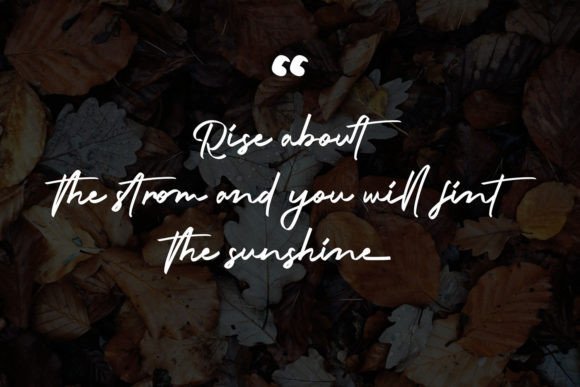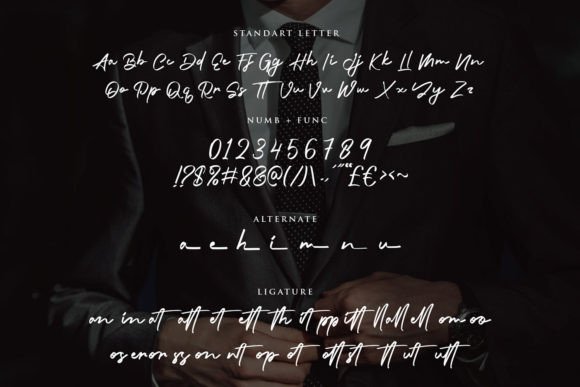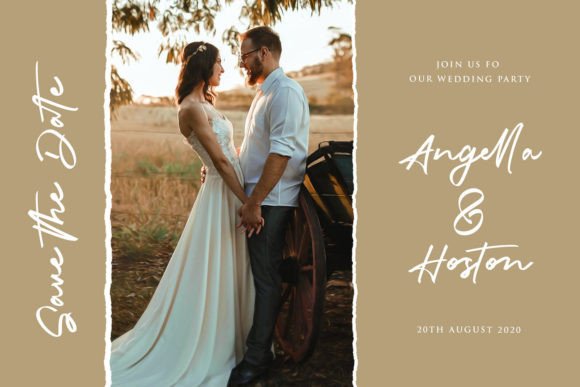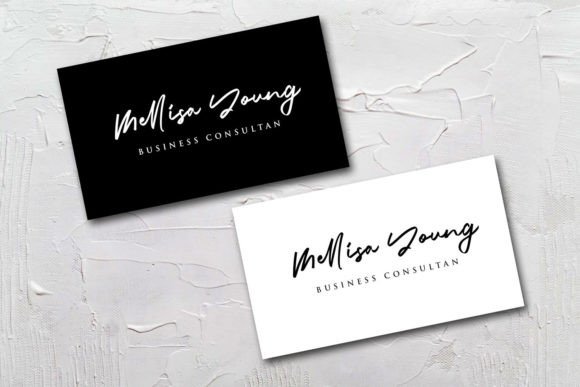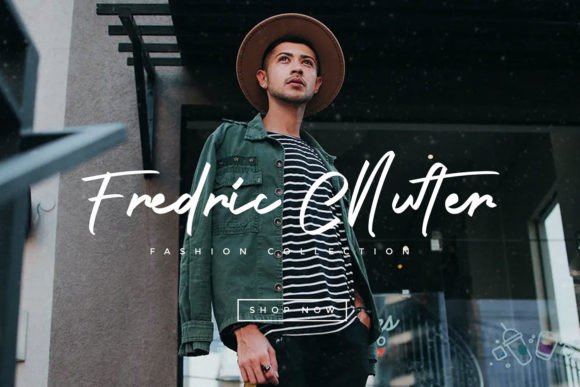
Add Professional Elegance with Brinattan Font
The Brinattan font is a modern script font designed with a professional and classy feel. Its stylish, readable, and catchy design makes it ideal for a wide range of creative projects. Whether you’re working on watermarks, signatures, logos, quotes, album covers, business cards, or other branding materials, Brinattan adds sophistication and flair to your work.
Perfect for Watermarks, Signatures, and Branding
The Brinattan font excels across various design applications including personalized branding, editorial layouts, promotional materials, and digital content. Its flowing strokes and elegant style give your projects a polished and memorable appearance.
Despite its decorative and professional style, the Brinattan font maintains excellent readability across different sizes. Whether used for subtle watermarks or bold titles, it adds elegance without compromising clarity, making it a versatile choice for many creative projects.
Make Your Designs Shine with Classy Style